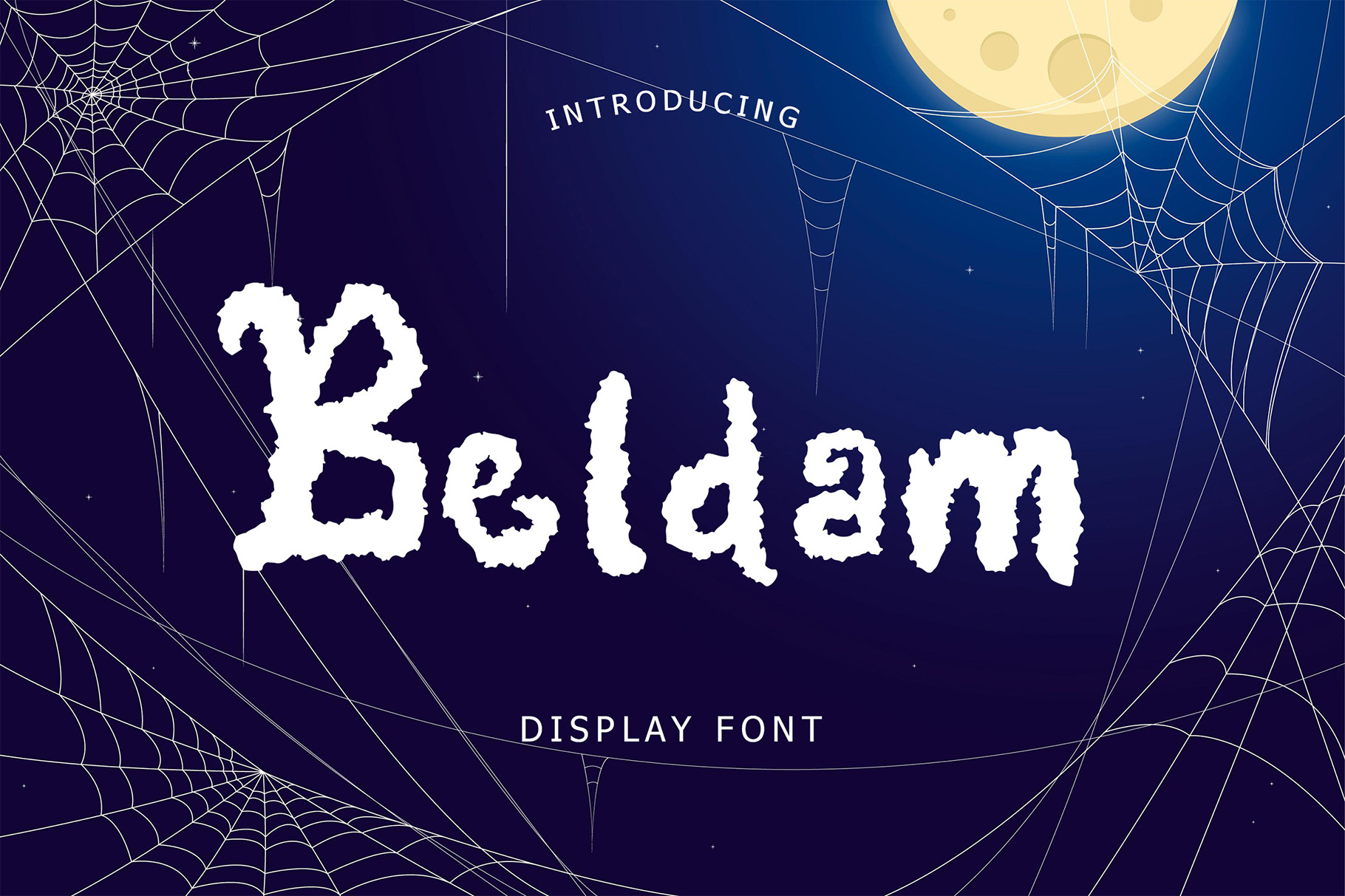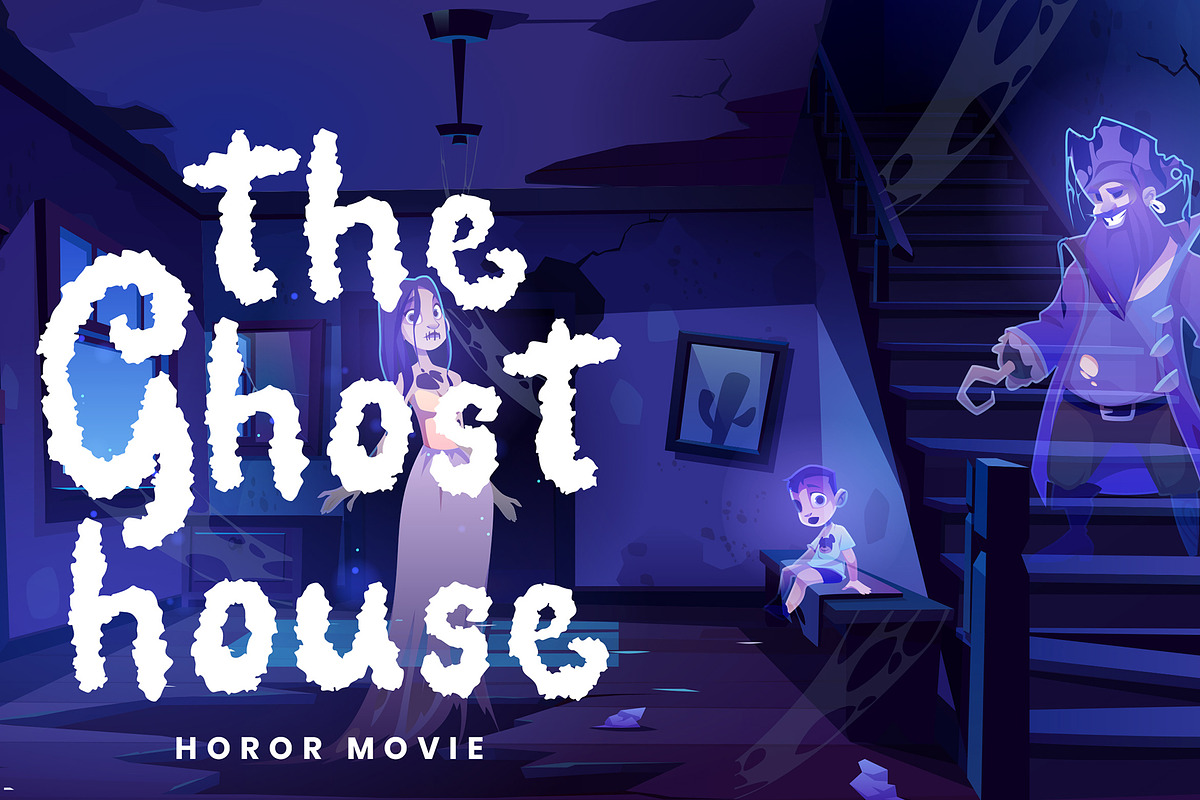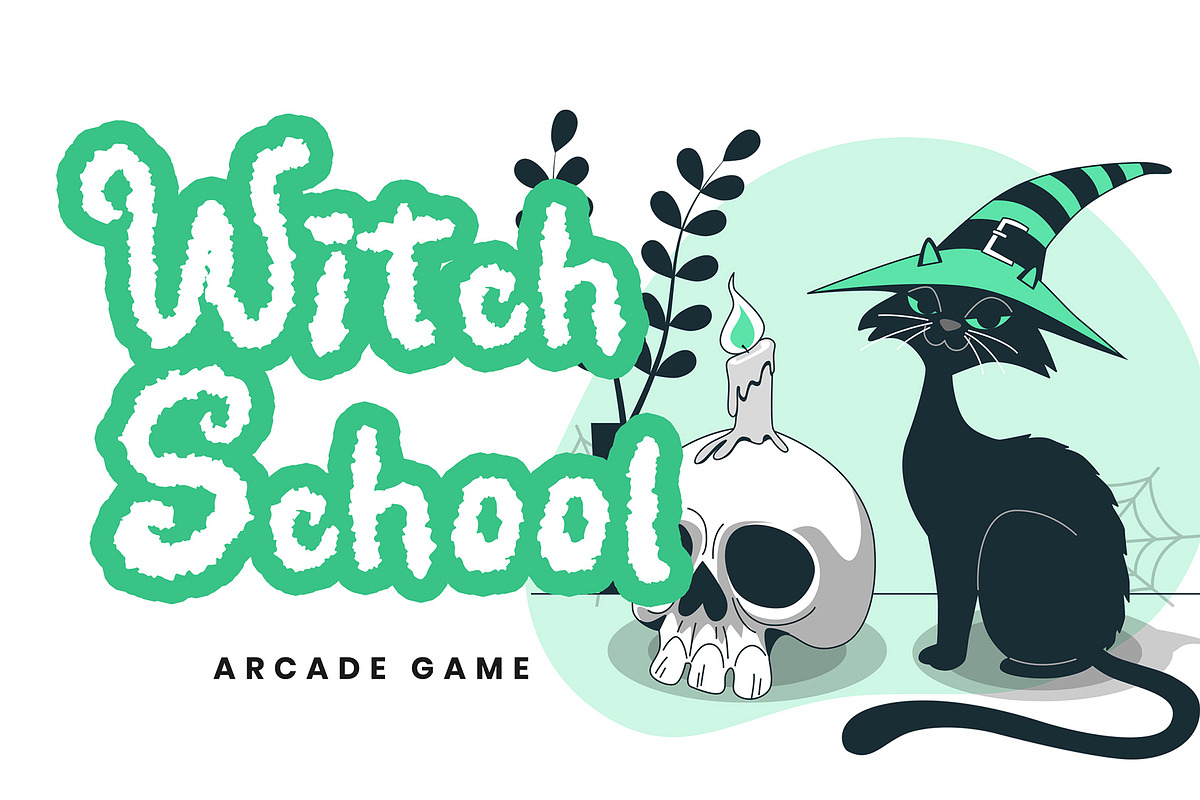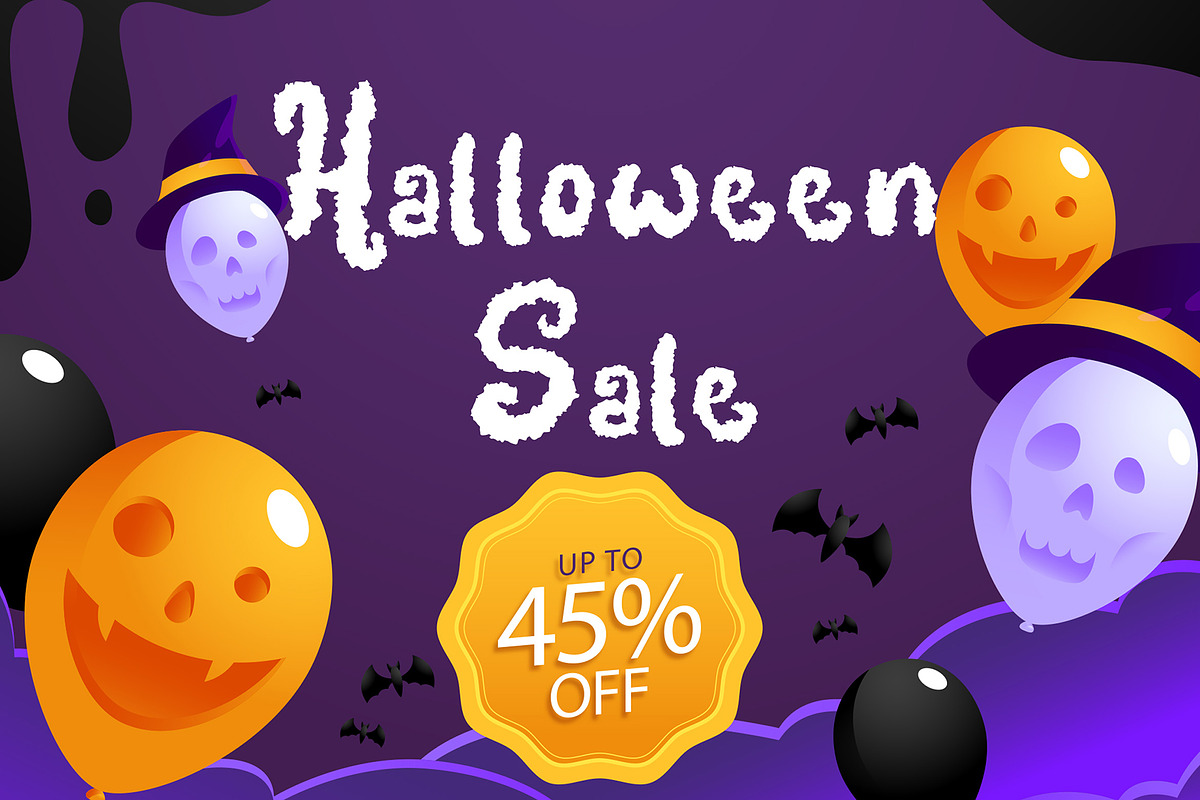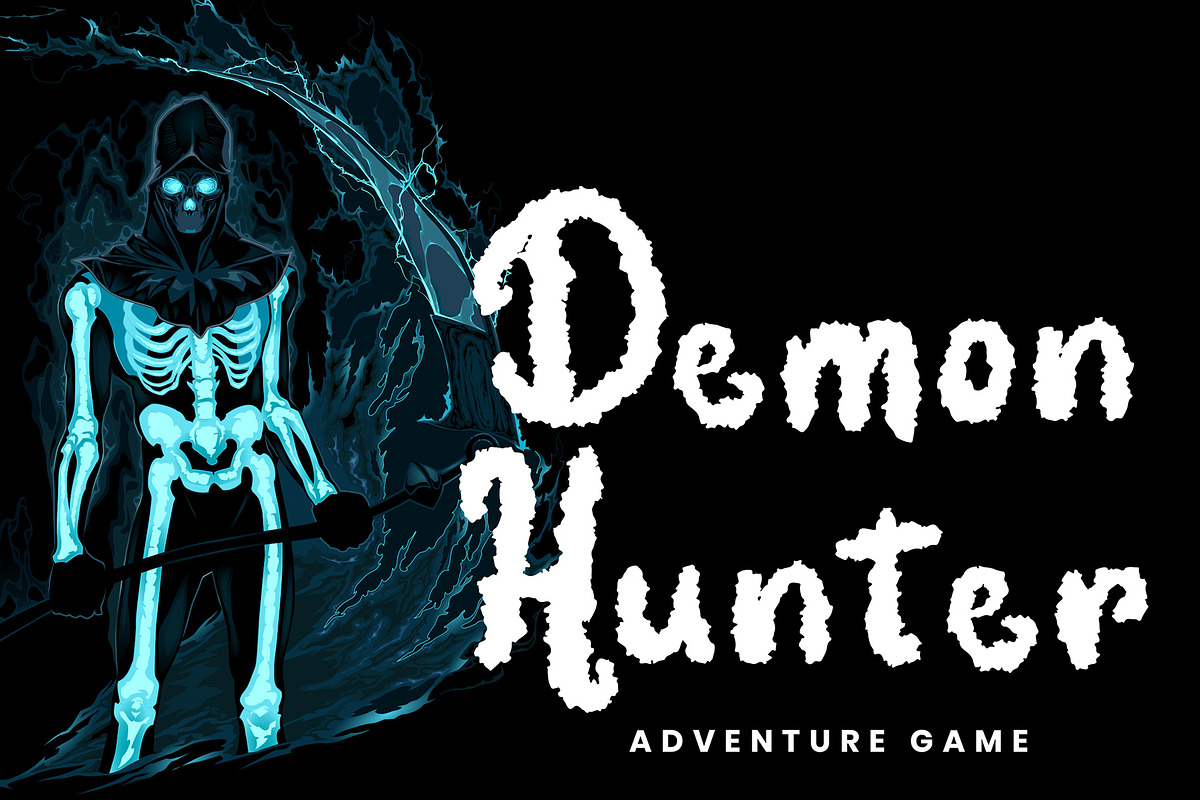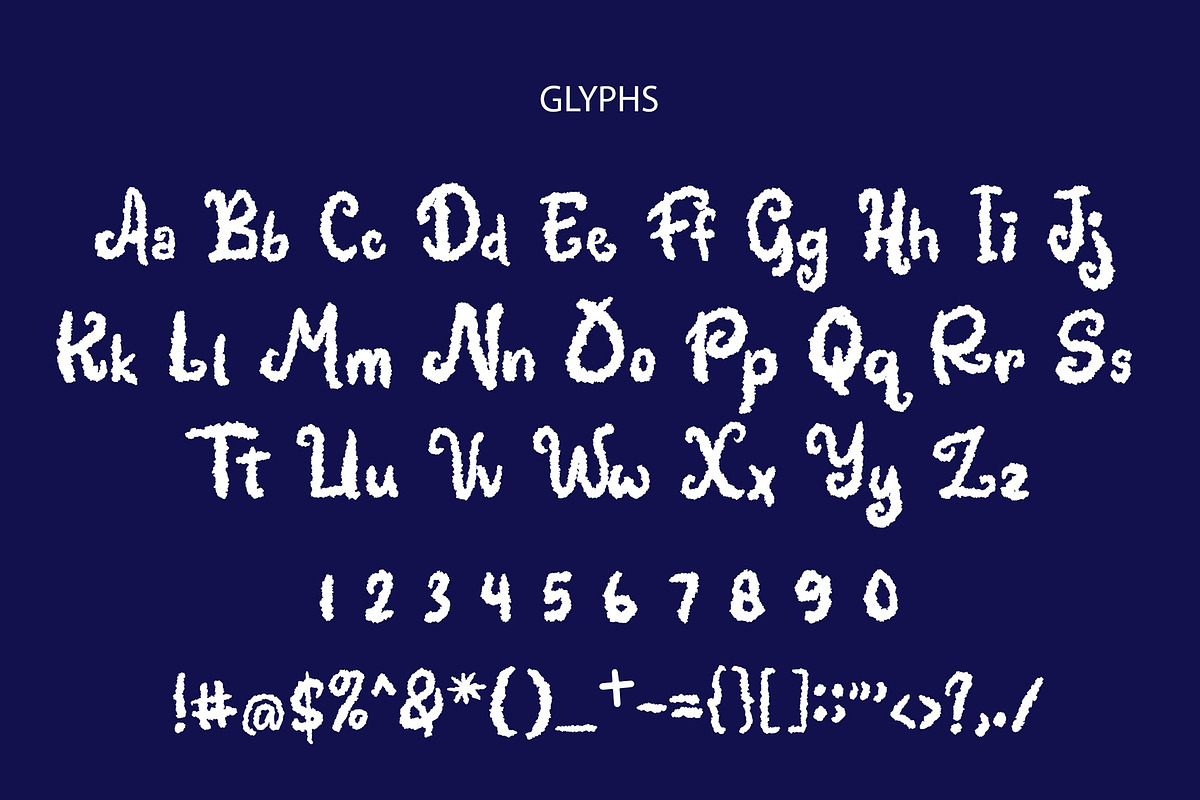
Beldam Display Font
Beldam is a spooky halloween font . This perfect for Invitation Halloween Party , branding projects, logo, book cover design, tshirt designs, social media posts, advertisements, product packaging, product designs, label, watermark, invitation, stationery and any projects